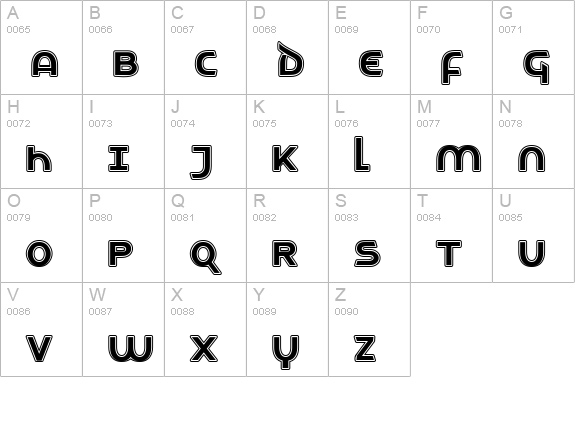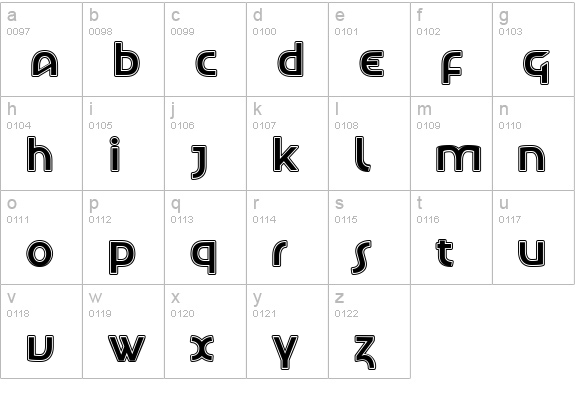
LetunicalInline Font Details
LetunicalInline is a stunning display font that exudes elegance and sophistication. With its sleek lines and intricate details, this font is perfect for adding a touch of class to any design project. Whether you're creating a logo, designing a poster, or crafting a stylish invitation, LetunicalInline will instantly elevate your work to new heights. One of the best features of LetunicalInline is that it is completely free to download. That's right - this incredible font can be yours without spending a dime. Thanks to FontsMarket.com, you can easily access and download LetunicalInline with just a few clicks. FontsMarket.com is a reputable website that offers an extensive collection of high-quality fonts, and LetunicalInline is no exception. This font is not only visually stunning, but it is also highly versatile. Its clean and modern design makes it suitable for a wide range of projects, from branding to packaging and everything in between. LetunicalInline's unique style sets it apart from other fonts, making it the perfect choice for anyone looking to make a bold statement. With LetunicalInline, you can unleash your creativity and bring your designs to life. Its distinct letterforms and impeccable spacing make for a seamless reading experience, ensuring that your message is communicated clearly and effectively. Whether you're aiming for a professional and polished look or a playful and whimsical vibe, LetunicalInline can adapt to suit your needs. So why wait? Take advantage of this amazing opportunity to enhance your design projects with LetunicalInline. Head over to FontsMarket.com and download this incredible font for free. Don't miss out on the chance to add a touch of elegance and sophistication to your creations. LetunicalInline is the font you've been waiting for - get it now and let your designs shine!